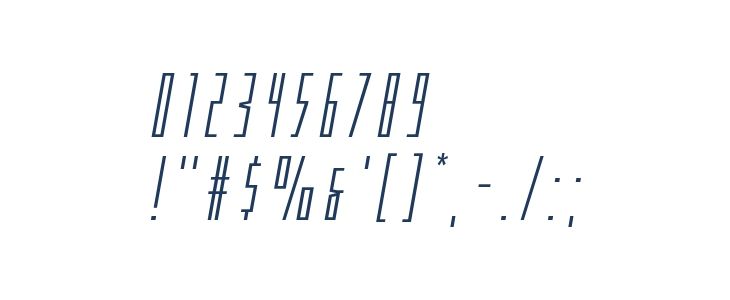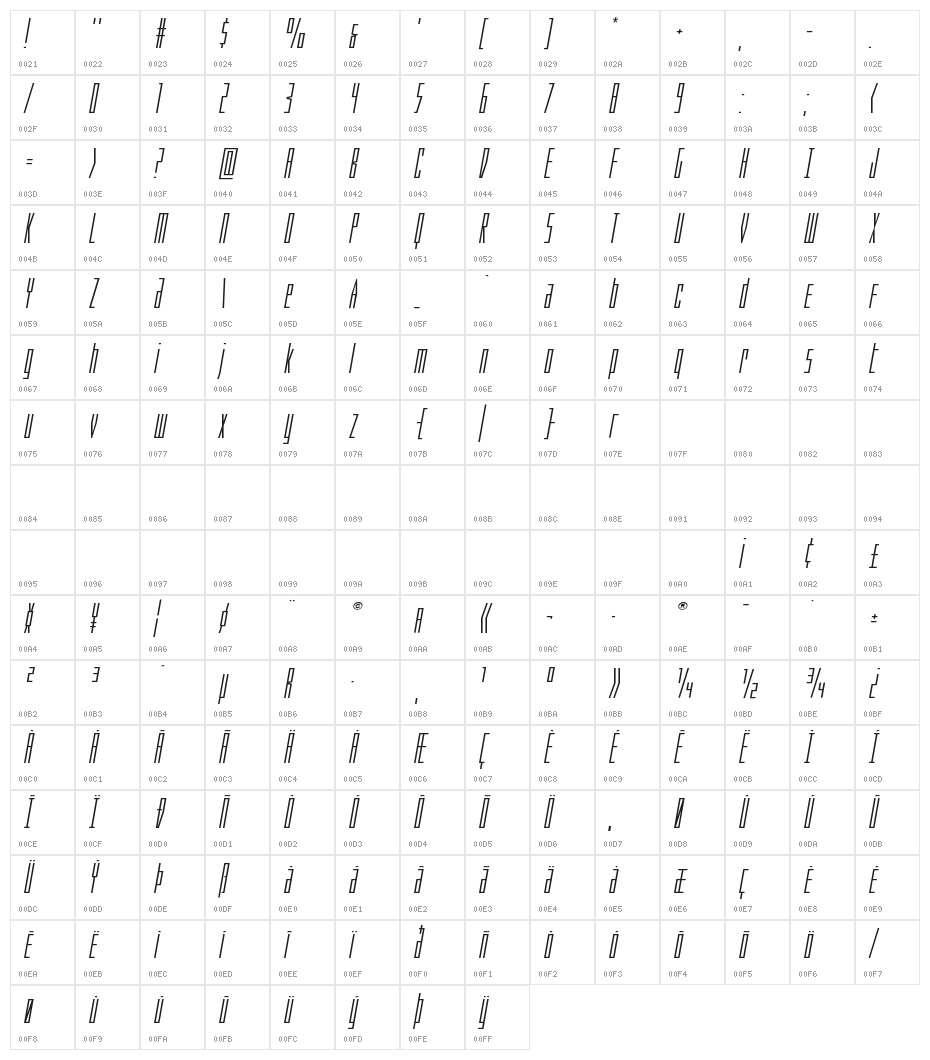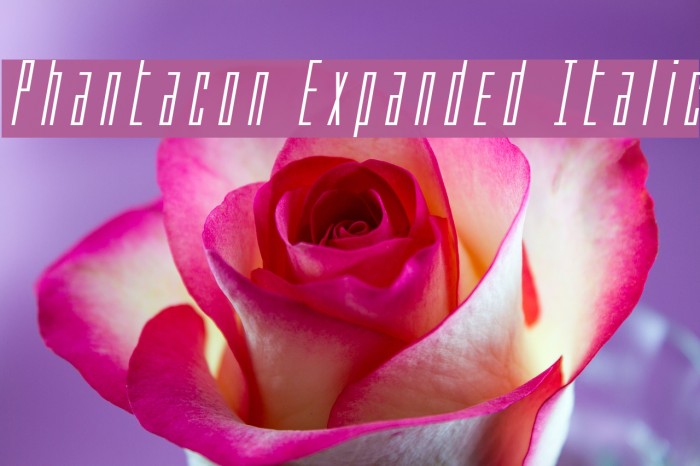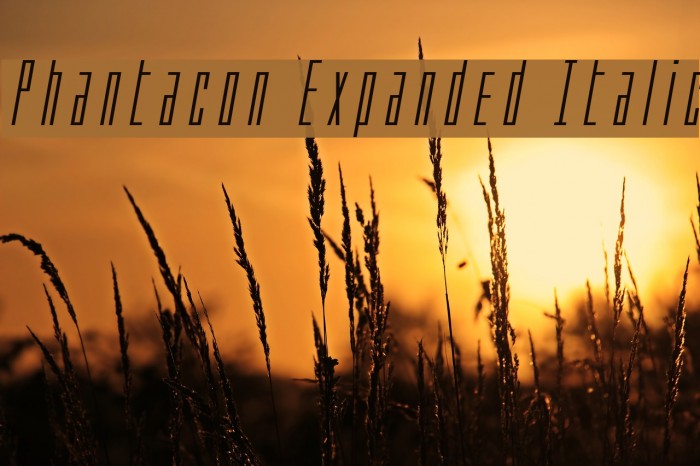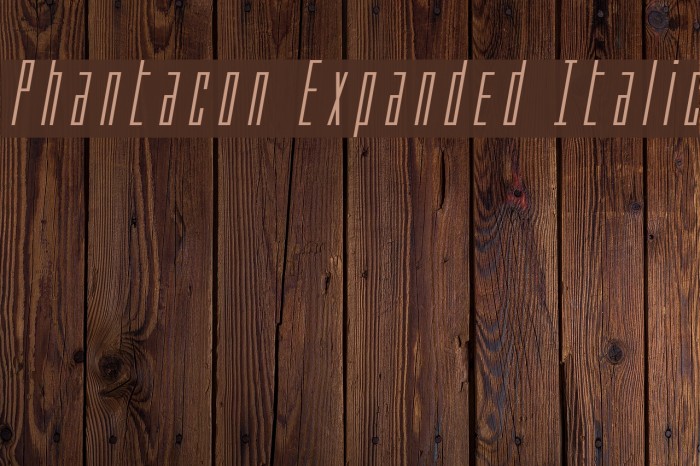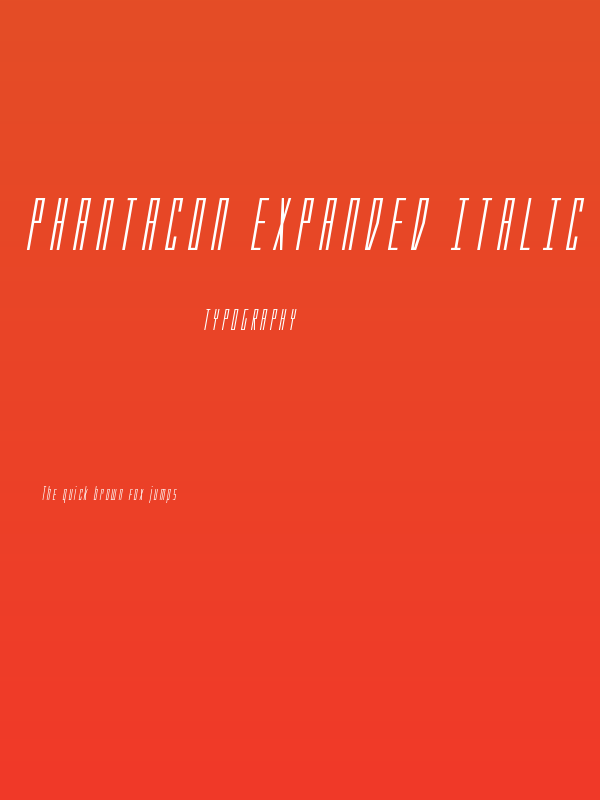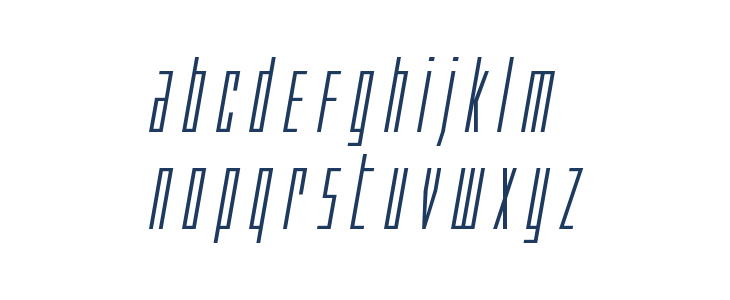
Phantacon Expanded Italic Font
Phantacon Expanded Italic Description
This font exhibits a futuristic and sleek design with elongated, narrow characters that are slightly slanted, giving it an italicized appearance. The characters are uniformly expanded, creating a sense of movement and dynamism. The strokes are consistent in width, contributing to a clean and modern aesthetic. The uppercase and lowercase letters maintain a cohesive style, while the numerals and special characters blend seamlessly with the overall design. This font's unique style makes it stand out, suitable for projects that require a modern and innovative touch.